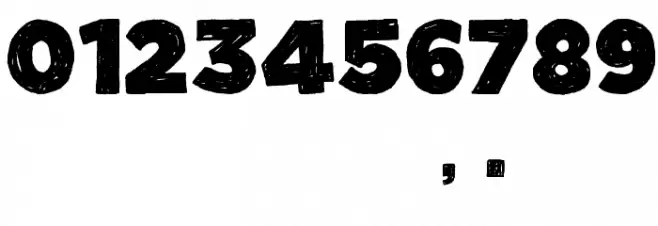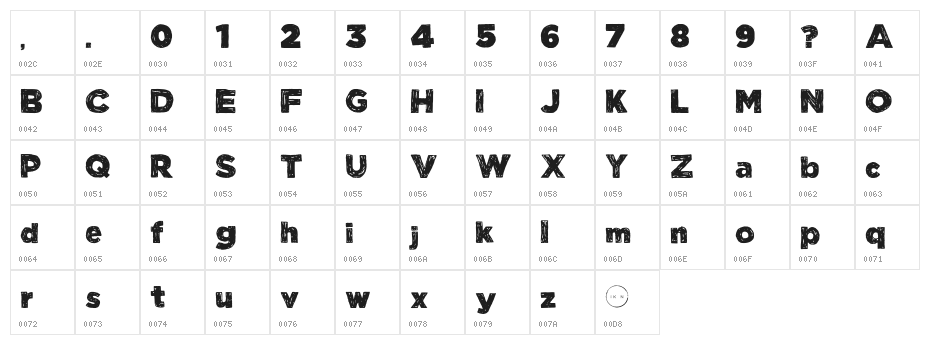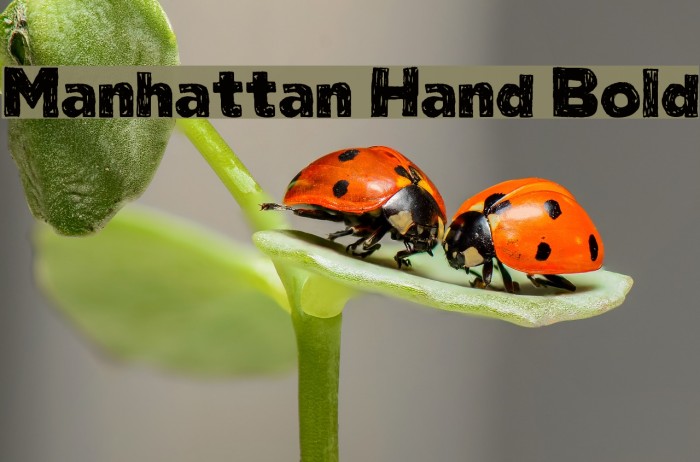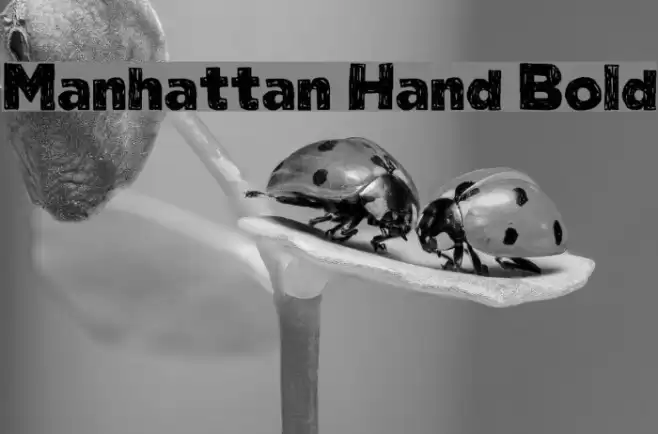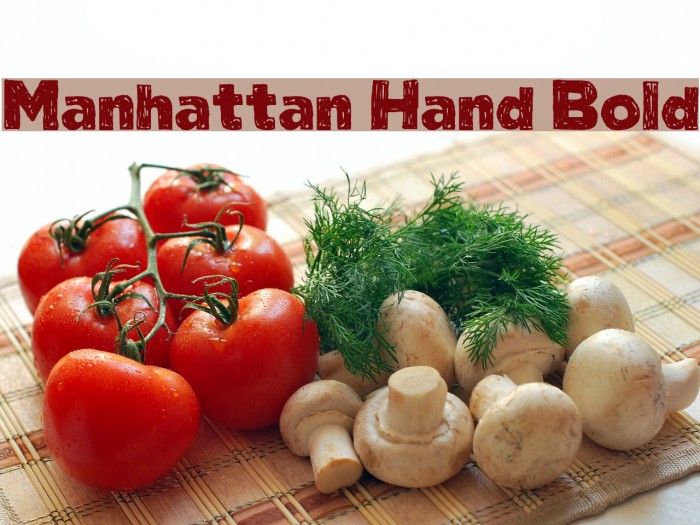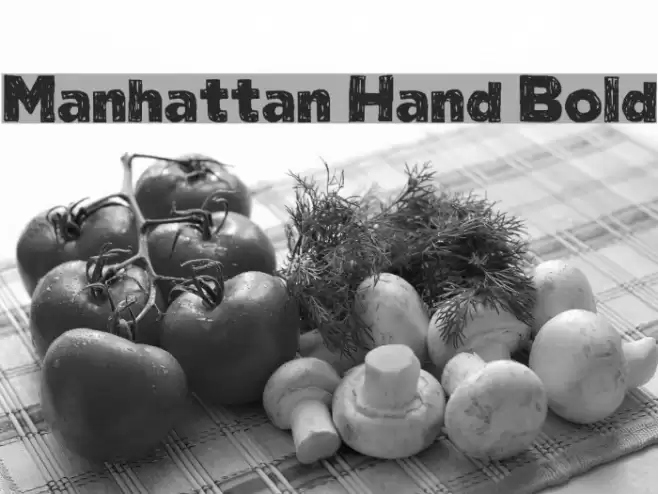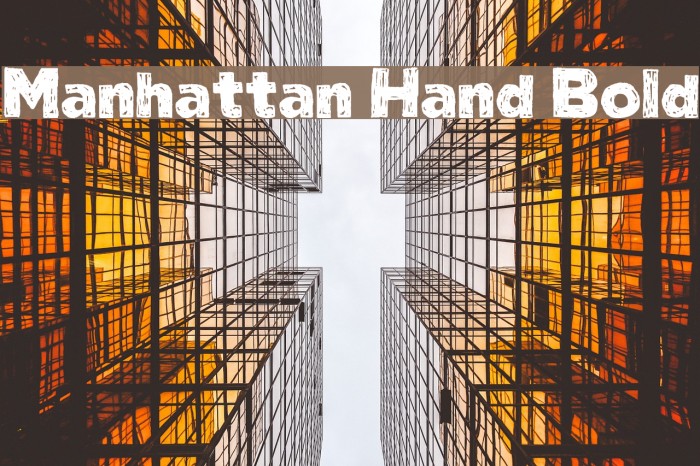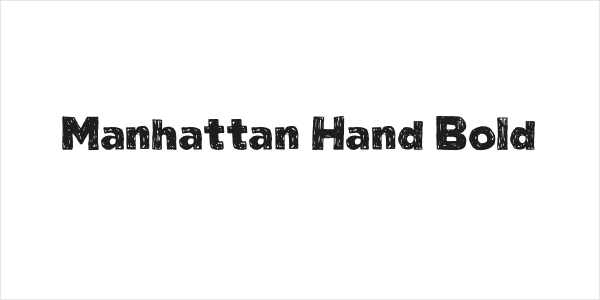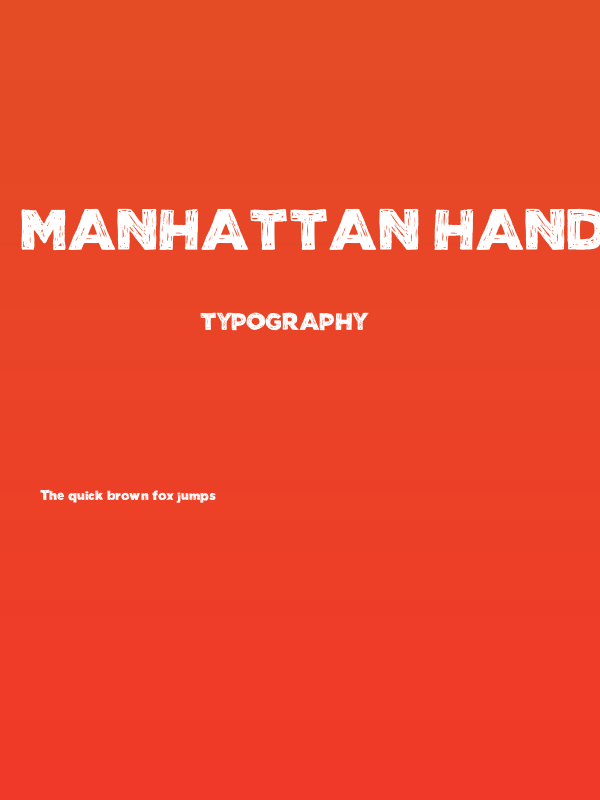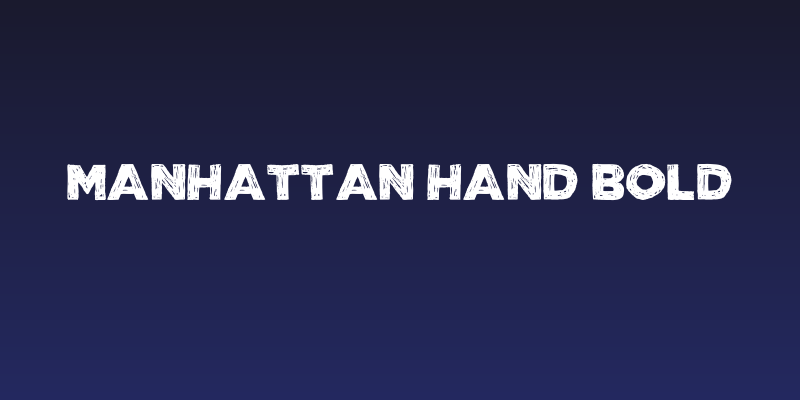
Manhattan Hand Bold Font
Manhattan Hand Bold Description
This font features a bold, hand-drawn style with a textured, distressed appearance. The characters are thick and robust, giving a strong visual impact. The uppercase and lowercase letters maintain a consistent weight, while the numbers and special characters follow the same bold, textured design. The font's playful and artistic nature makes it suitable for creative projects. The rough edges and uneven lines add a handcrafted feel, making it ideal for designs that require a personal touch.
| Proposed Projects | Ideal for posters, album covers, branding, and any project needing a bold, artistic touch. |